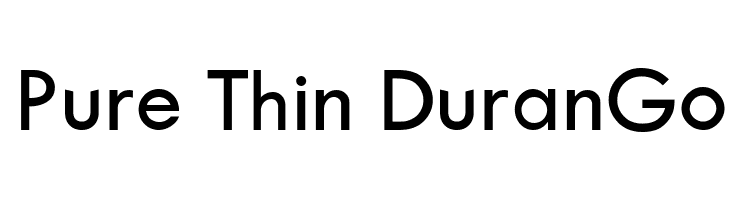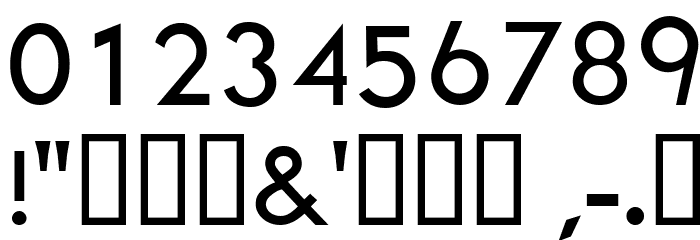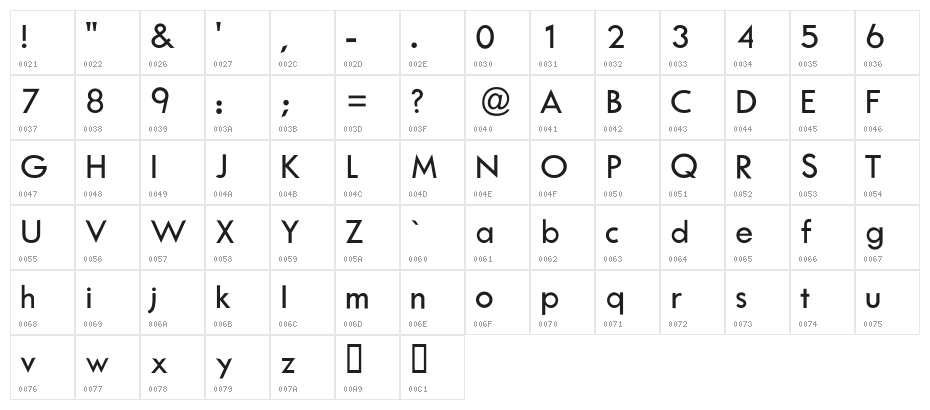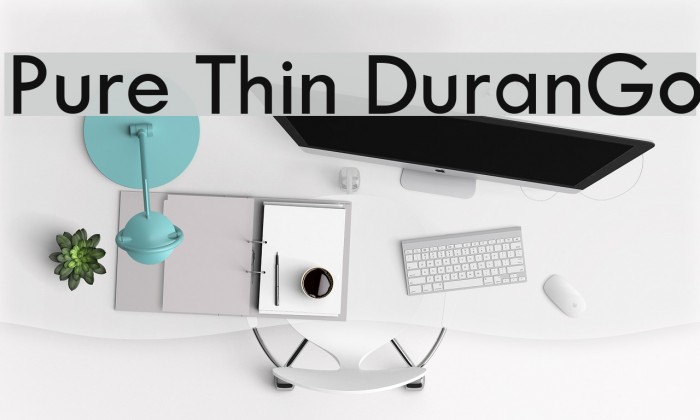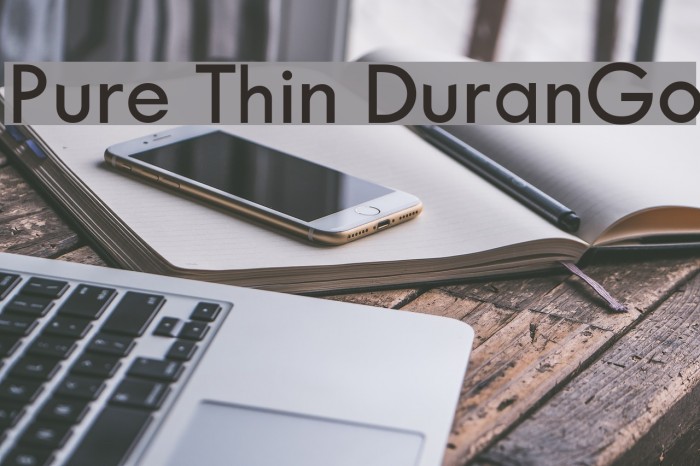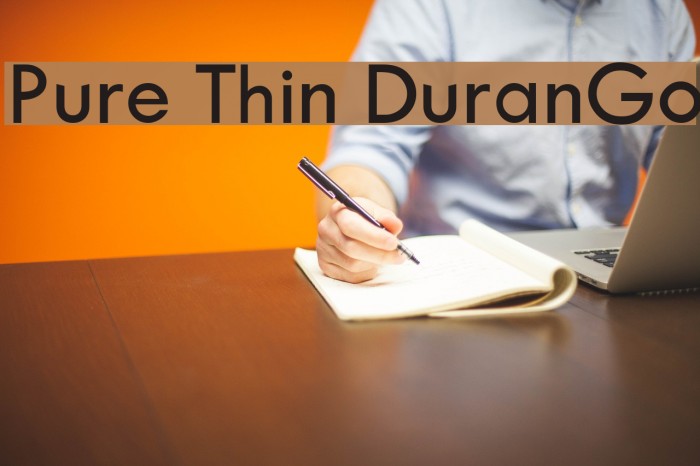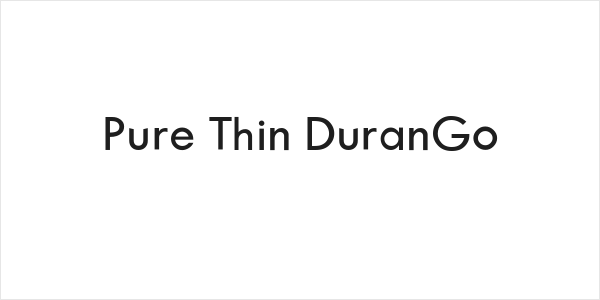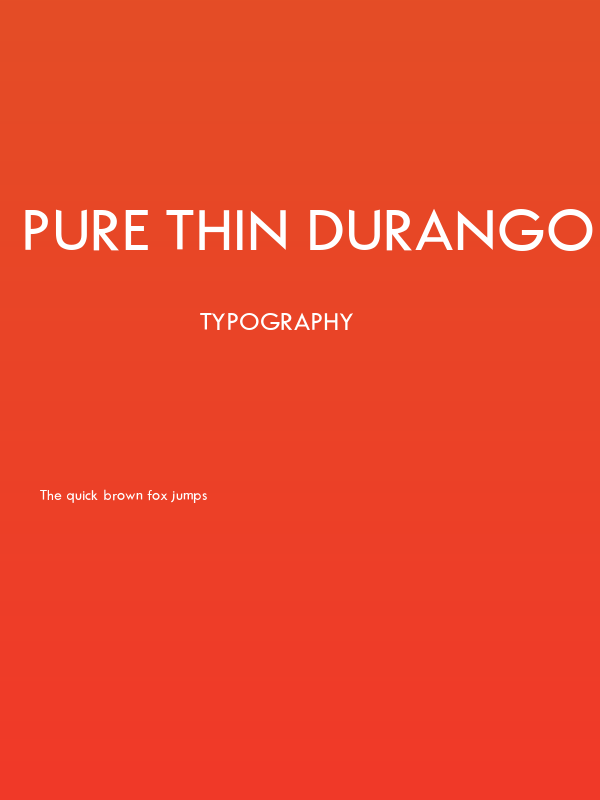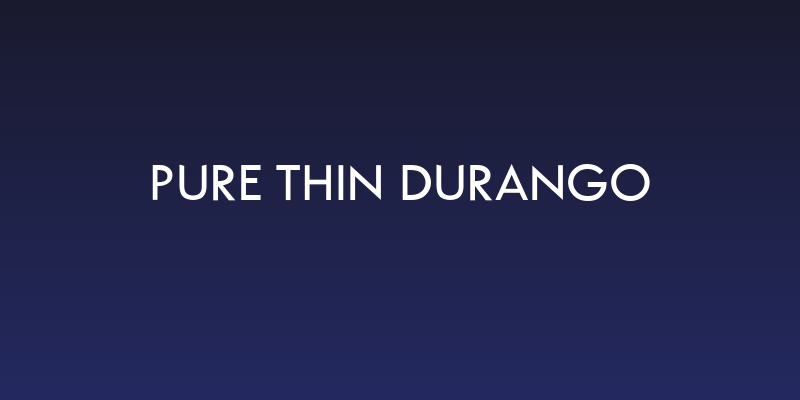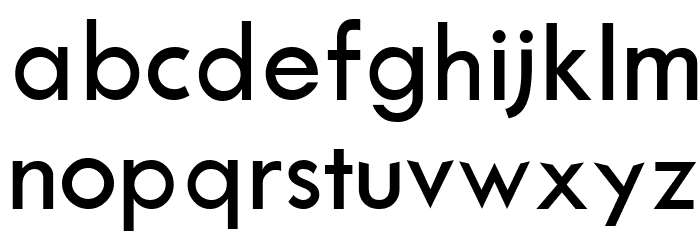
Pure Thin DuranGo Font
Pure Thin DuranGo Description
This font exhibits a clean and modern aesthetic with a sans-serif style. The characters are uniform and geometric, providing a sense of balance and clarity. The uppercase letters are bold and assertive, while the lowercase letters maintain a consistent flow with rounded edges. The numerals are straightforward and align well with the overall design, ensuring readability. Special characters are distinct and well-integrated, enhancing the font's versatility. The overall impression is one of simplicity and elegance, making it suitable for various design applications.
| Proposed Projects | Ideal for branding, web design, advertising, and editorial projects where clarity and modernity are desired. |